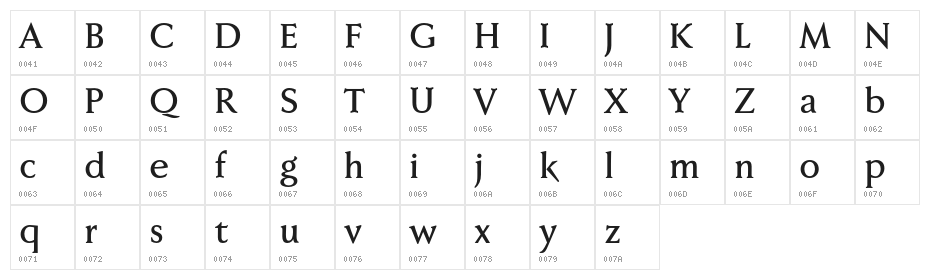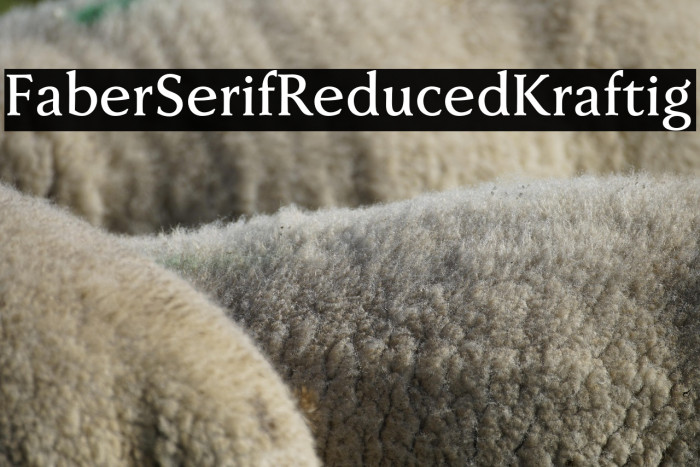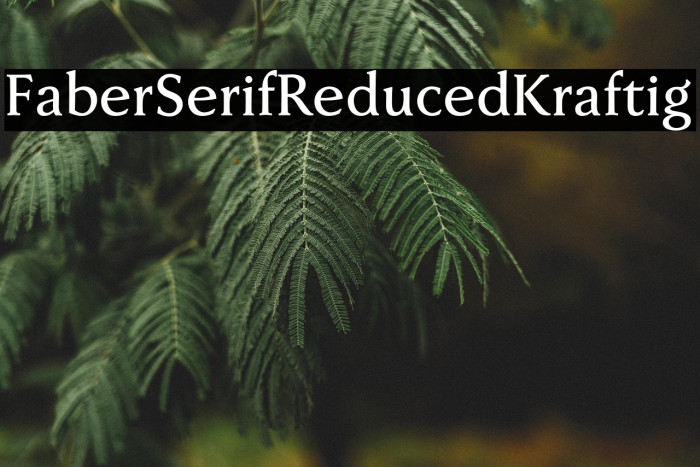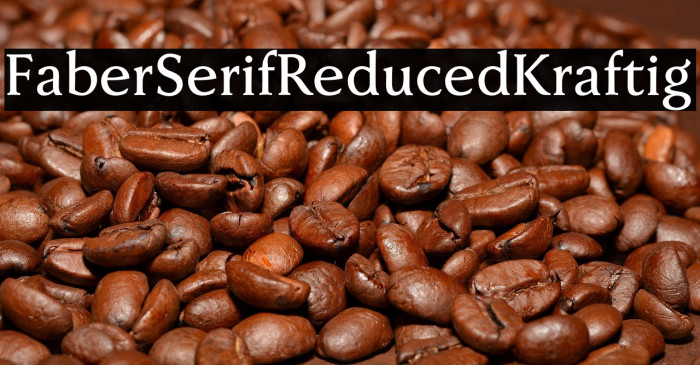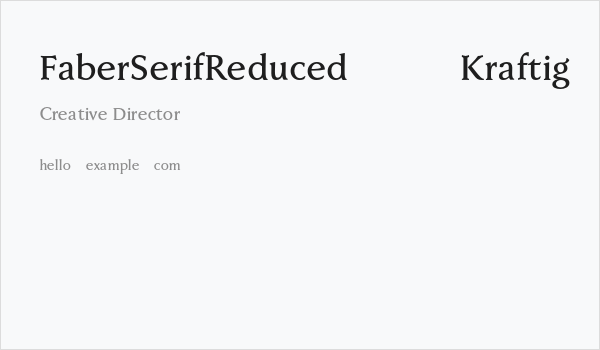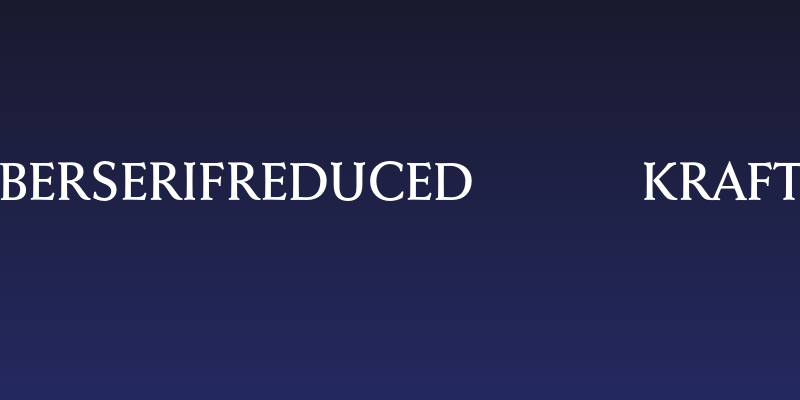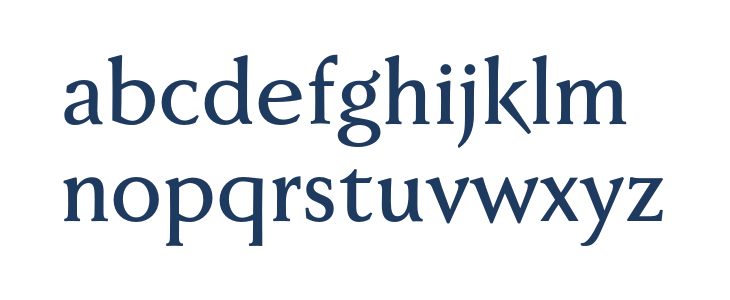
FaberSerifReduced-65Kraftig Font
FaberSerifReduced-65Kraftig Description
This font exhibits a classic serif style with a strong presence and elegant curves. The uppercase letters are bold and commanding, while the lowercase letters maintain a refined and sophisticated appearance. The serifs are pronounced, adding a touch of tradition and formality. The overall design is balanced, with a medium contrast between thick and thin strokes, providing a harmonious and readable text. The numerals are consistent with the letterforms, ensuring a cohesive look across all characters. This font is versatile, suitable for both digital and print media, and can be used to convey a sense of authority and professionalism.
Overall StyleClassic
Proposed ProjectsIdeal for book publishing, formal invitations, corporate branding, and editorial design.